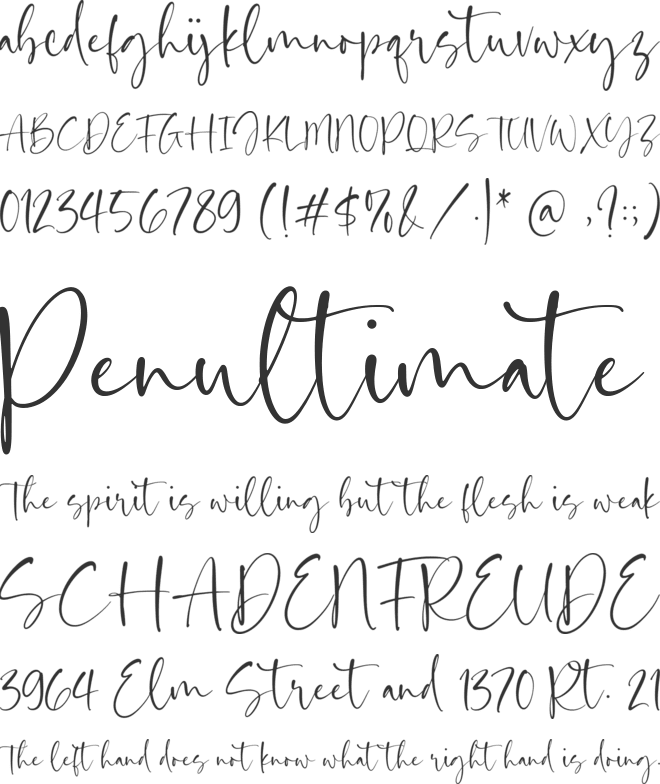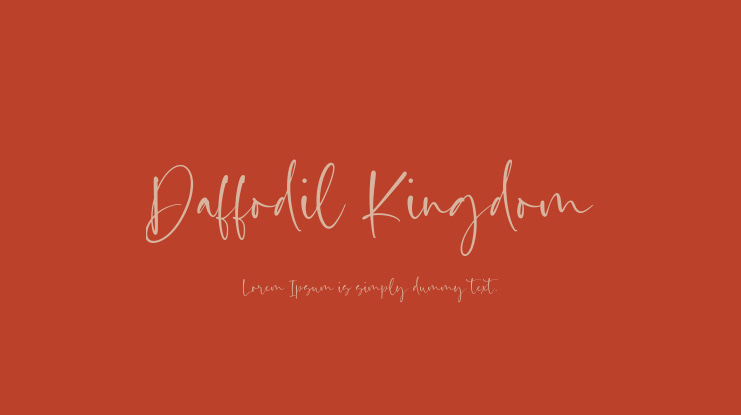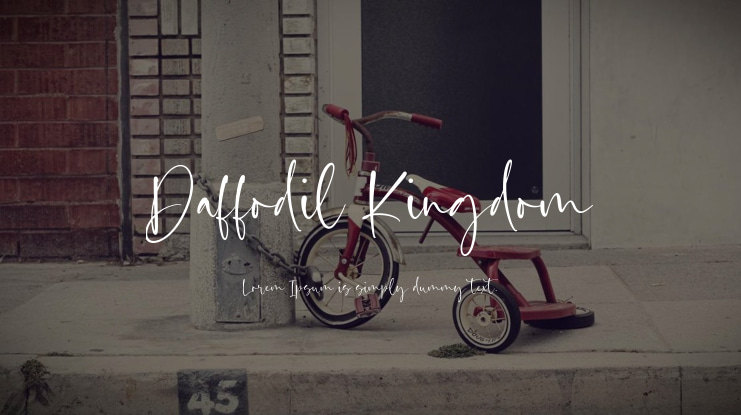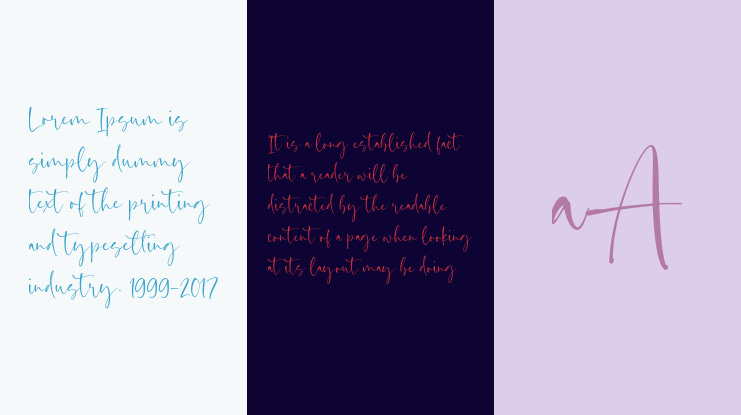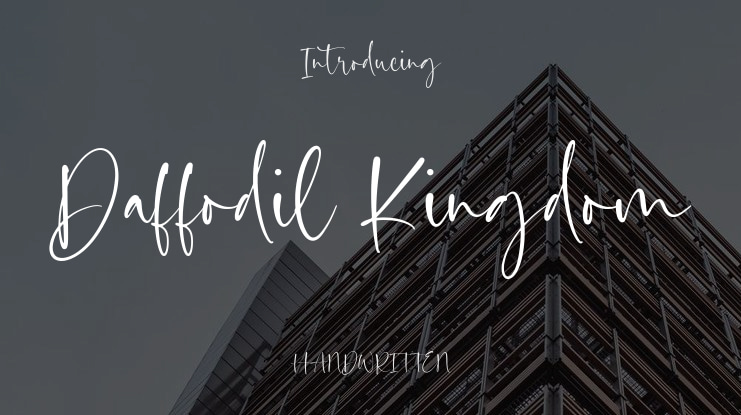
Daffodil Kingdom is an elegant Handwritten Script Font that adds a touch of whimsy and charm to your design projects. The delicate and fluid letterforms of this font radiate sophistication and grace, making it perfect for various creative endeavors. The intricate handcrafted details and graceful curves of Daffodil Kingdom bring a sense of beauty and refinement to any text. Whether you are designing wedding invitations, logos, or branding materials, this font will infuse your work with a hint of romance and allure. Its unique and captivating style will transport your designs to a magical realm, ensuring that they truly stand out from the rest. Embrace the enchanting beauty of the Daffodil Kingdom handwritten script font and watch your creativity flourish.
The features of Daffodil Kingdom Font include:
Additionally, Daffodil Kingdom Font provides multilingual support.
This font boasts premium features, such as a full set of standard alphabet and punctuation, adding versatility to your creations.